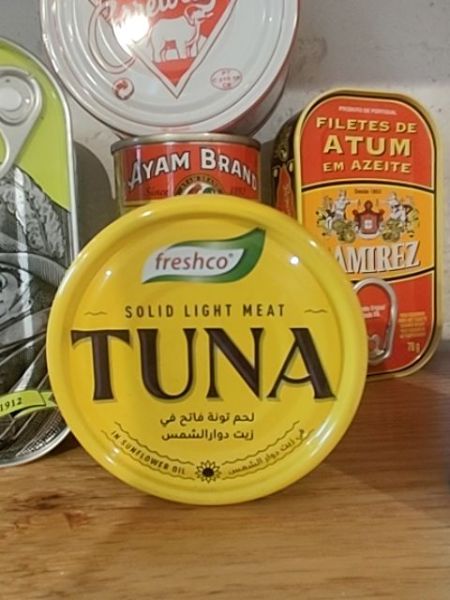
Freshco Solid Light Meat Tuna
Canned tuna intended for consumption as a protein-rich food, often used in salads, sandwiches, and various dishes.
The typography features a bold and serifed font for the word 'TUNA,' conveying strength and quality. The rest of the text uses a sans-serif font, which adds to the modern and clean appearance. This combination ensures key information is clear while maintaining brand identity.
The packaging is a vibrant yellow tin with the word 'TUNA' boldly displayed in large, black lettering, making it easily noticeable. The lid includes a green leaf with the logo 'freshco' to emphasize freshness. Additional multilingual text surrounds the central branding, providing information about the tuna and its preparation.
- The tuna is packed in sunflower oil.
- It is labeled as solid light meat.
- The product highlights a commitment to freshness.